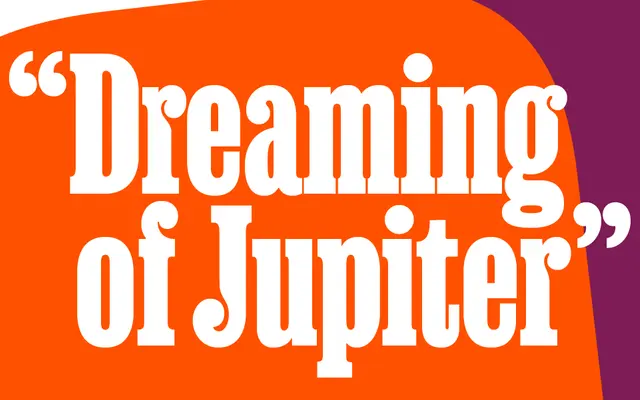
Ballast
XYZ Type · Ben Kiel
A compressed Egyptienne with exaggerated ball terminals, originally drawn for New York magazine by Ben Kiel and still in active development.
Born from a commission for New York magazine, Ballast takes an Egyptienne structure and pushes it into an extra-narrow width designed for tight, dense typesetting. Ben Kiel later refined the concept for Supermajority, pushing the ball terminals further and carving out as much internal space as possible. Currently available in a single Condensed Bold, with additional weights and widths planned.
Ballast is explicitly described as an Egyptienne typeface compressed into an extra-narrow width, with exaggerated ball terminals characteristic of a display slab serif.